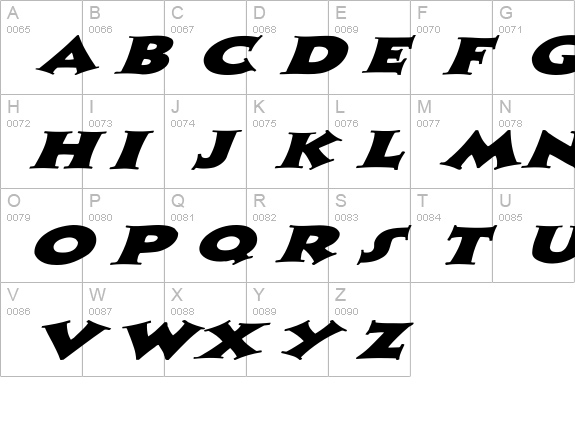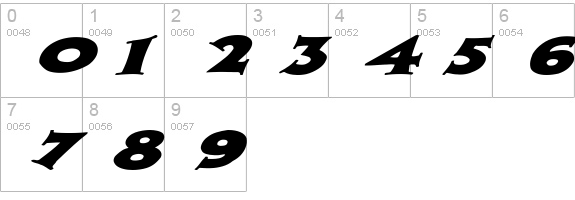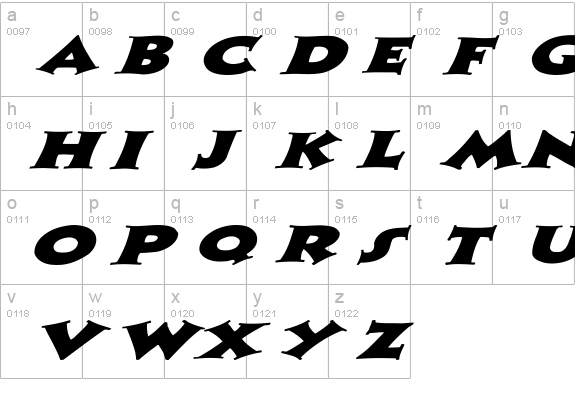
Zaleski Ex Italic Font Details
Zaleski Ex Italic is a distinctive, italic variant in the Zaleski typeface family \xE2\x80\x94 well suited to design and typography projects.
Zaleski Ex Italic font is a stunning typeface that exudes elegance and sophistication. Its sleek and stylish design makes it perfect for a wide range of projects, from branding and advertising to editorial and web design. With its flowing curves and graceful letterforms, Zaleski Ex Italic adds a touch of finesse to any text. Whether used for headlines or body copy, this font effortlessly captures attention and creates a sense of refinement. One of the standout features of Zaleski Ex Italic font is that it is freely available to download at FontsMarket.com. This means that designers, creatives, and enthusiasts can easily access and use this beautiful typeface without any cost. It offers a fantastic opportunity for those seeking a high-quality font that doesn't break the bank. The versatility of Zaleski Ex Italic is another key aspect to highlight. It seamlessly blends with various design styles, adapting effortlessly to both modern and classic aesthetics. The font's legibility ensures that it remains readable even at smaller sizes, making it suitable for both print and digital applications. In addition to its aesthetic appeal, Zaleski Ex Italic font also boasts a wide range of characters and language support, making it an excellent choice for multilingual projects. Its extensive glyph set includes ligatures, alternates, and special characters, giving designers ample creative possibilities. Overall, Zaleski Ex Italic font is a must-have for anyone looking to add a touch of sophistication to their designs. Its timeless elegance, combined with its availability as a free download at FontsMarket.com, makes it an invaluable resource for designers seeking to elevate their typographic game.